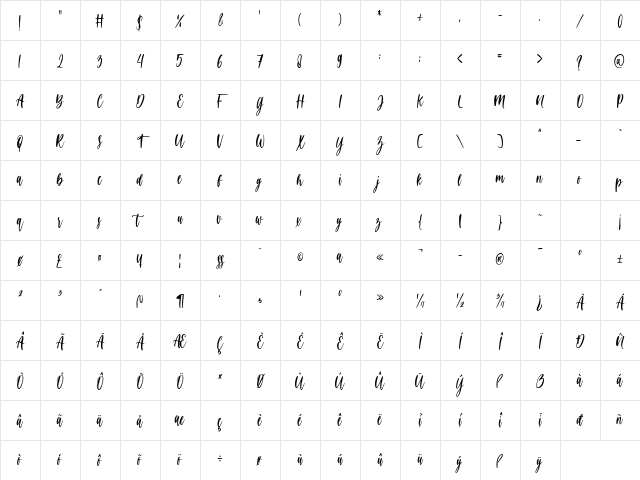
Delicated Regular Free Font
Delicated Regular
Designer: Muhamad Fikry Nuralif
Design Context for Delicated
Delicated is a composed and adaptable typeface that performs quietly and consistently across a wide range of design contexts.